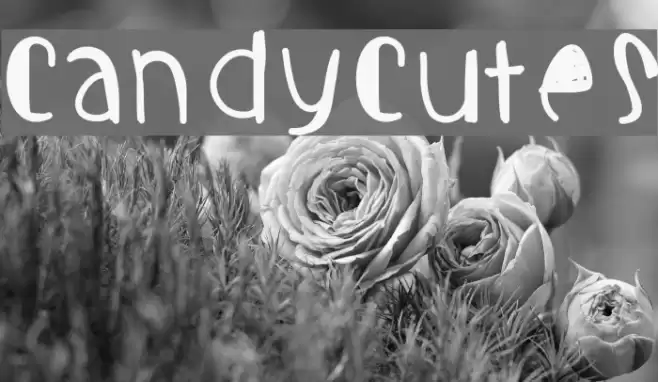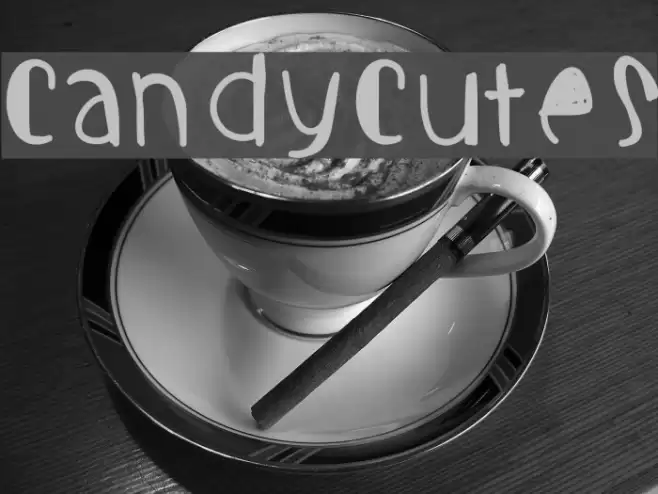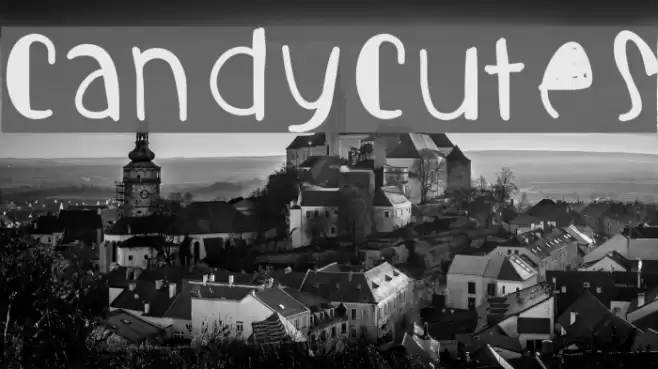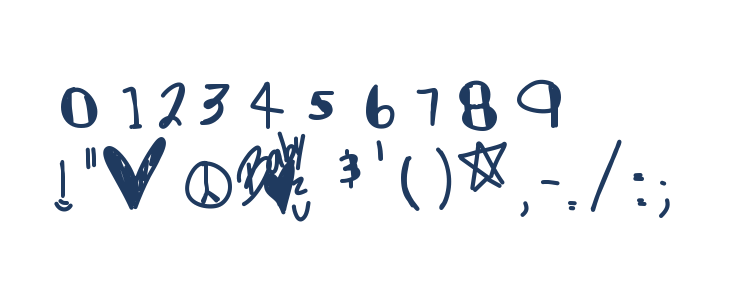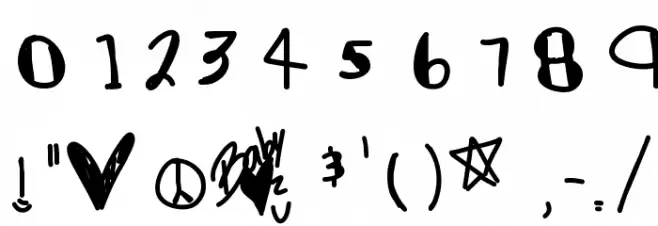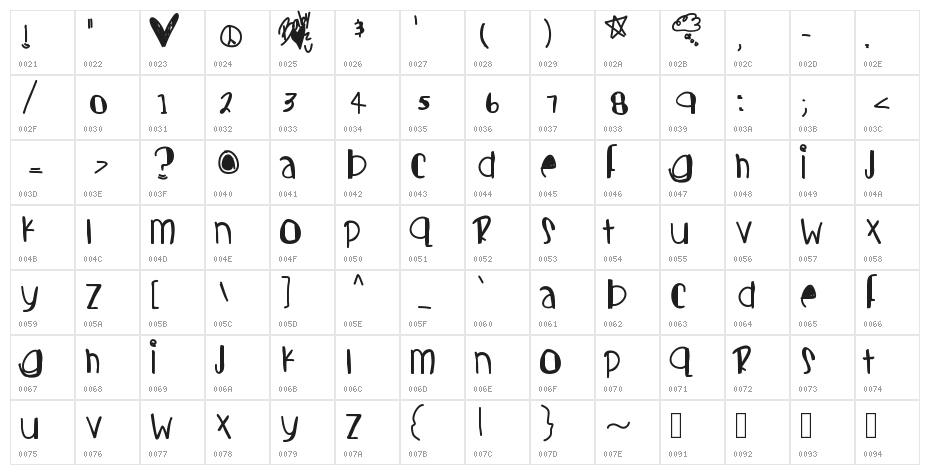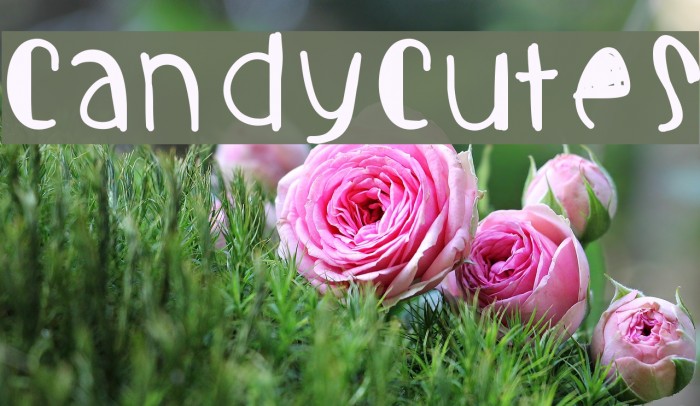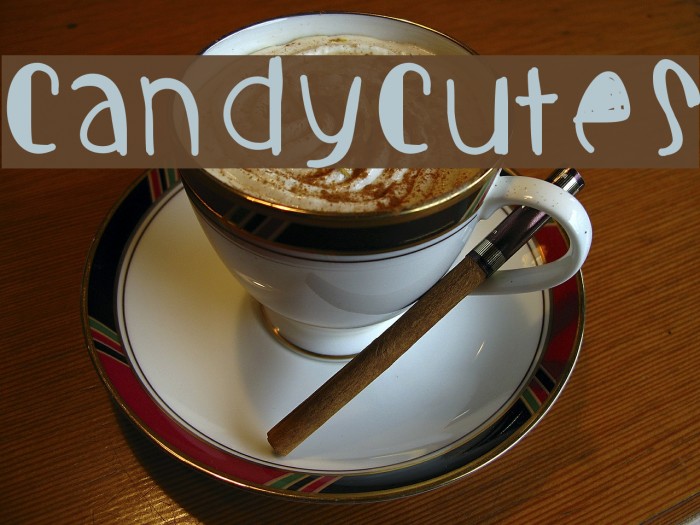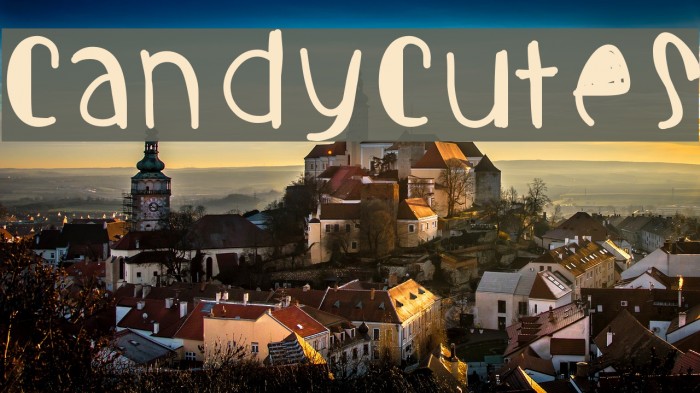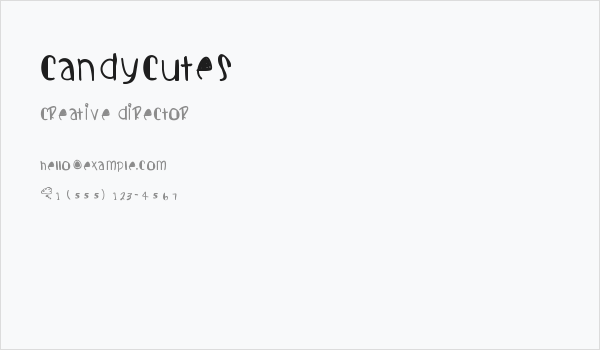
Candycutes Font
Candycutes Description
This playful and whimsical font features a hand-drawn style with uneven strokes and a casual, friendly appearance. The characters are slightly irregular, giving them a unique and charming personality. The lowercase letters have a youthful and energetic vibe, while the uppercase letters maintain a consistent yet quirky look. Numbers and special characters follow the same playful design, making the font suitable for creative and informal projects. Its distinctive style is perfect for capturing attention and adding a touch of fun to any design.
A playful, hand-drawn font with a whimsical and casual style from Cartoon fonts.
- Proposed Projects: Ideal for children's books, greeting cards, playful branding, and social media graphics.
- Use Case: Headlines, Logos, Informal Text